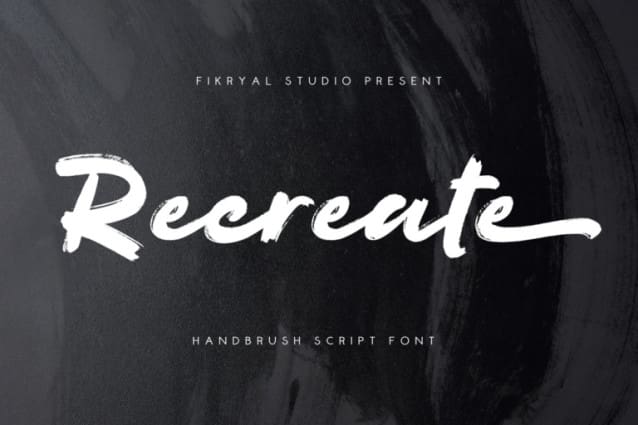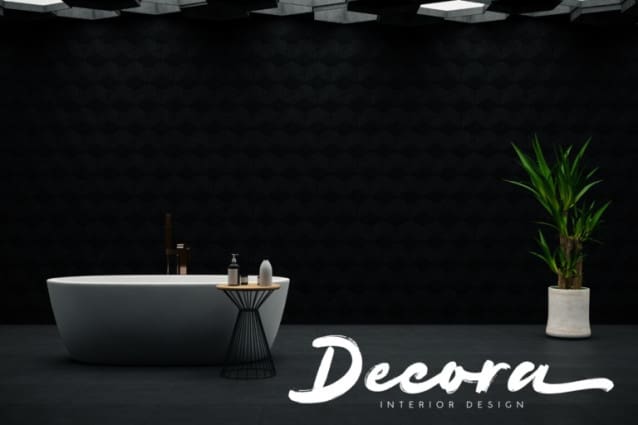
Recreate Handbrush Font
Recreate Handbrush Font, a dynamic and stylish brush font, featuring authentic brush strokes. With elegant alternate swashes and smooth ligatures in lowercase letters, this font is perfect for logos, posters, social media, invitations, and merchandise designs. Bring a casual and artistic touch to each of your creative works with Recreate!